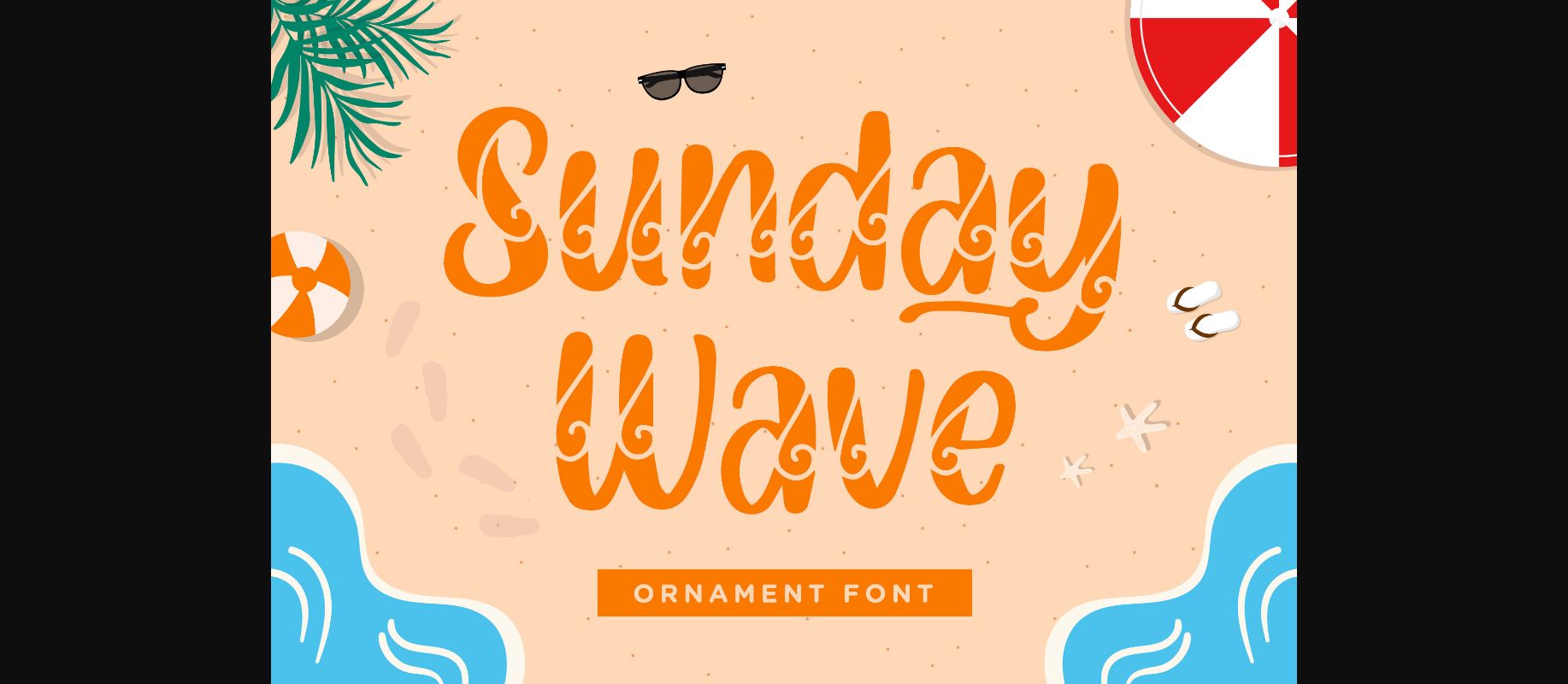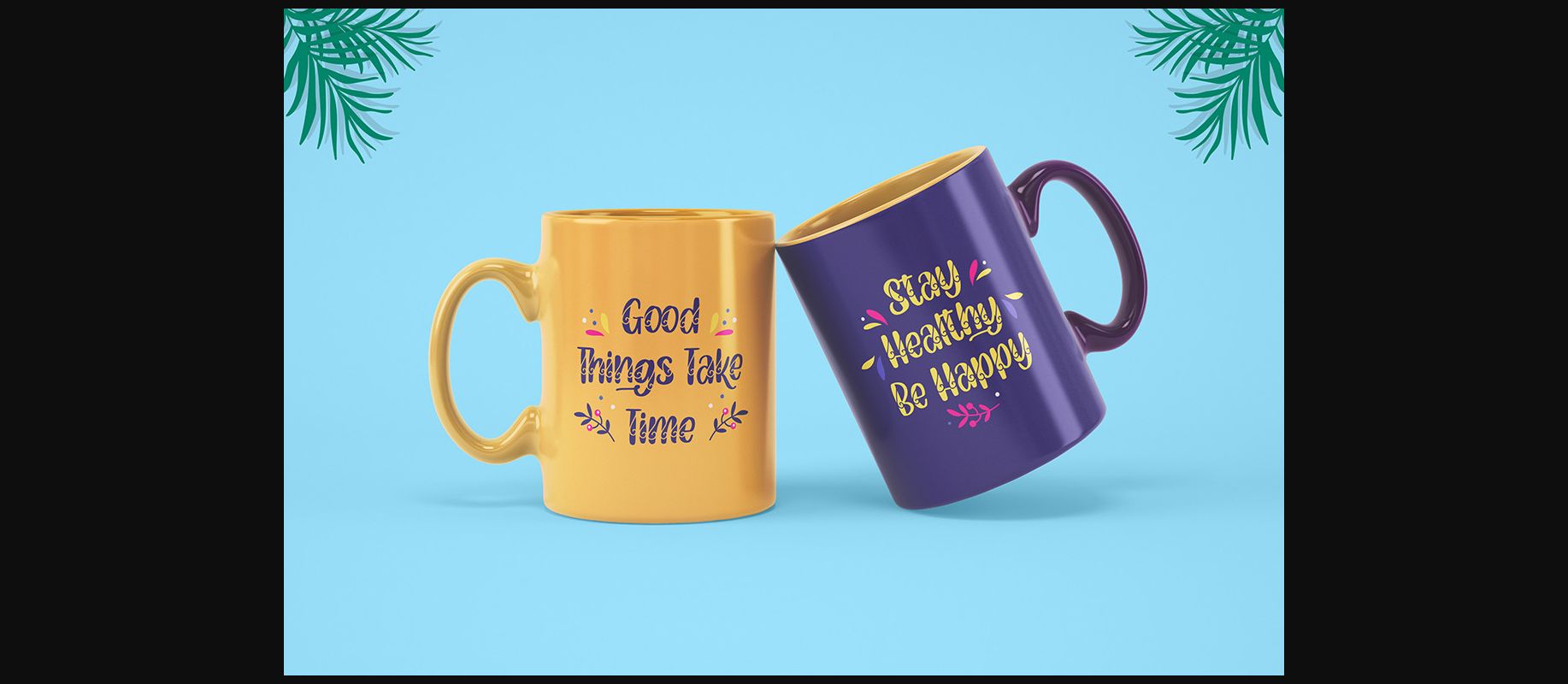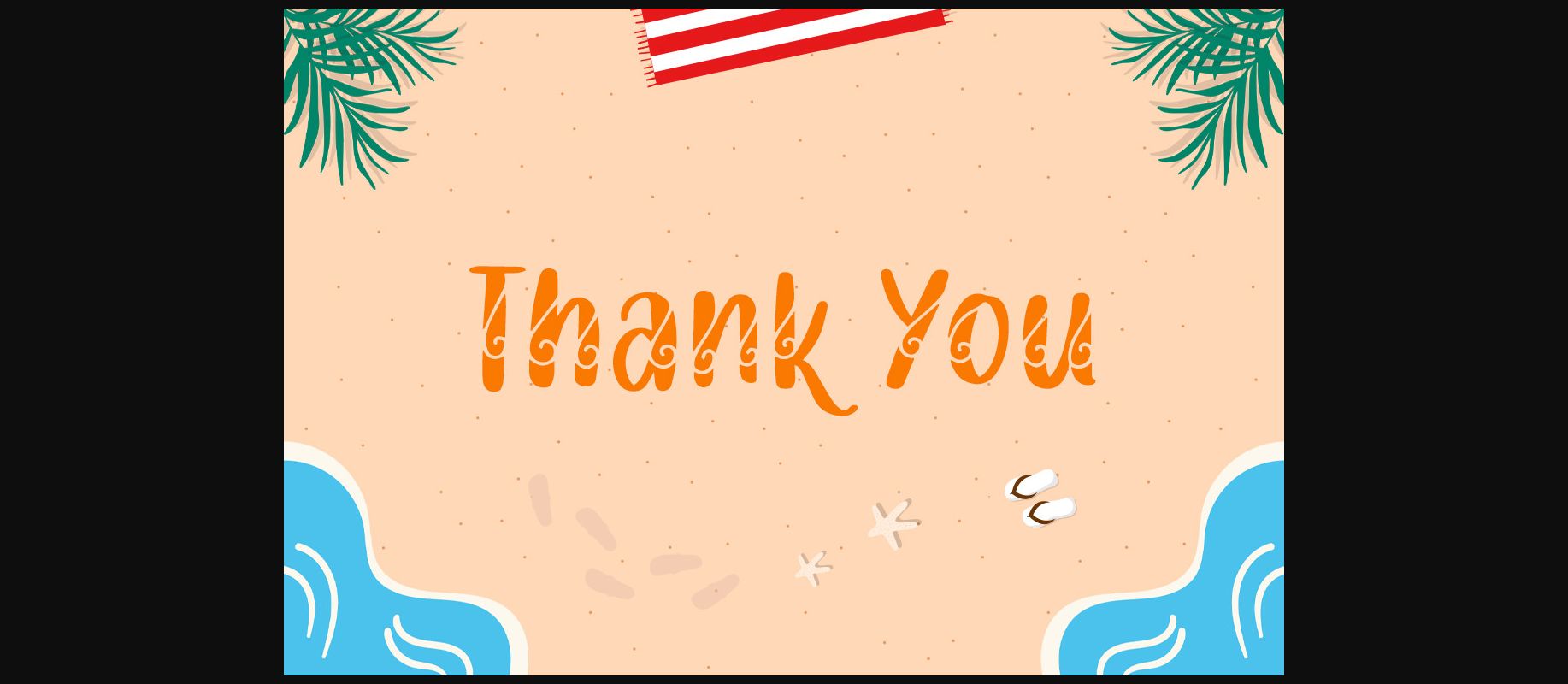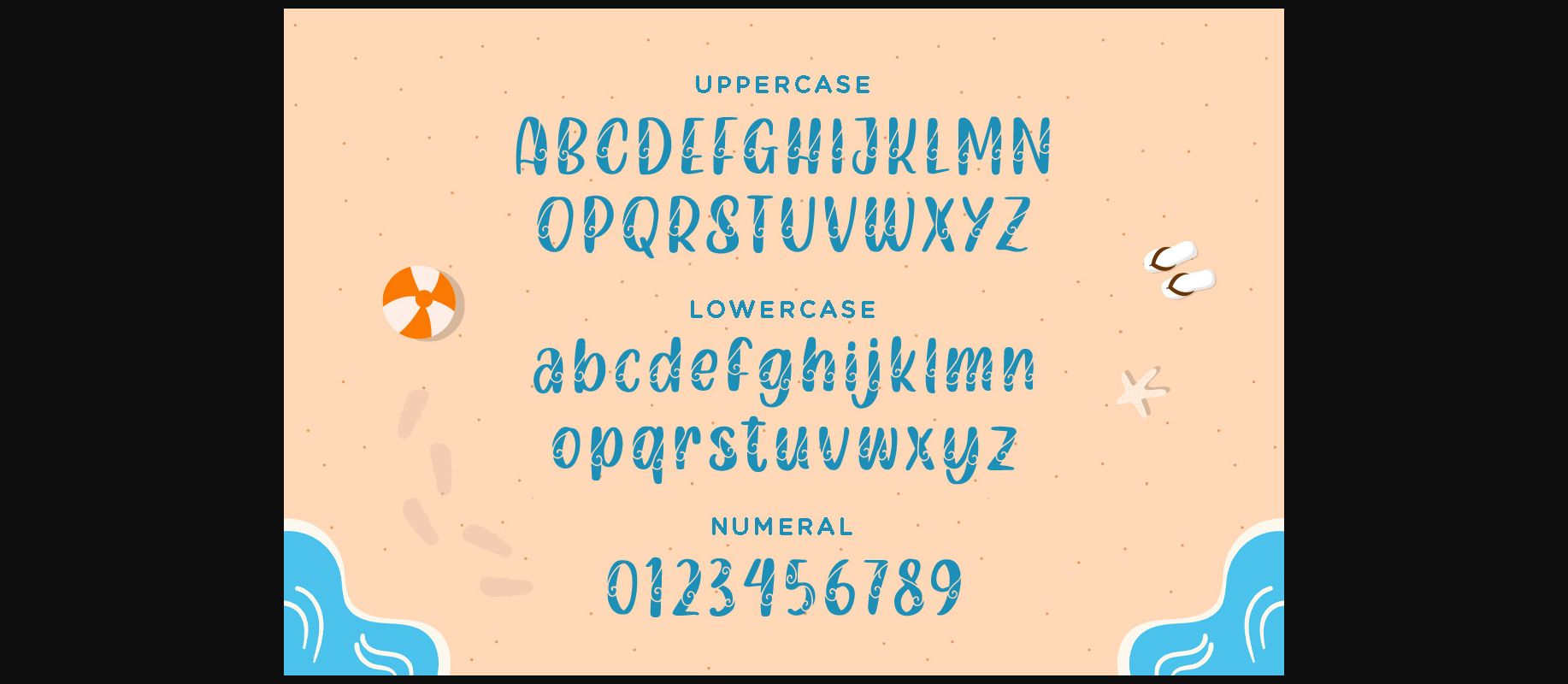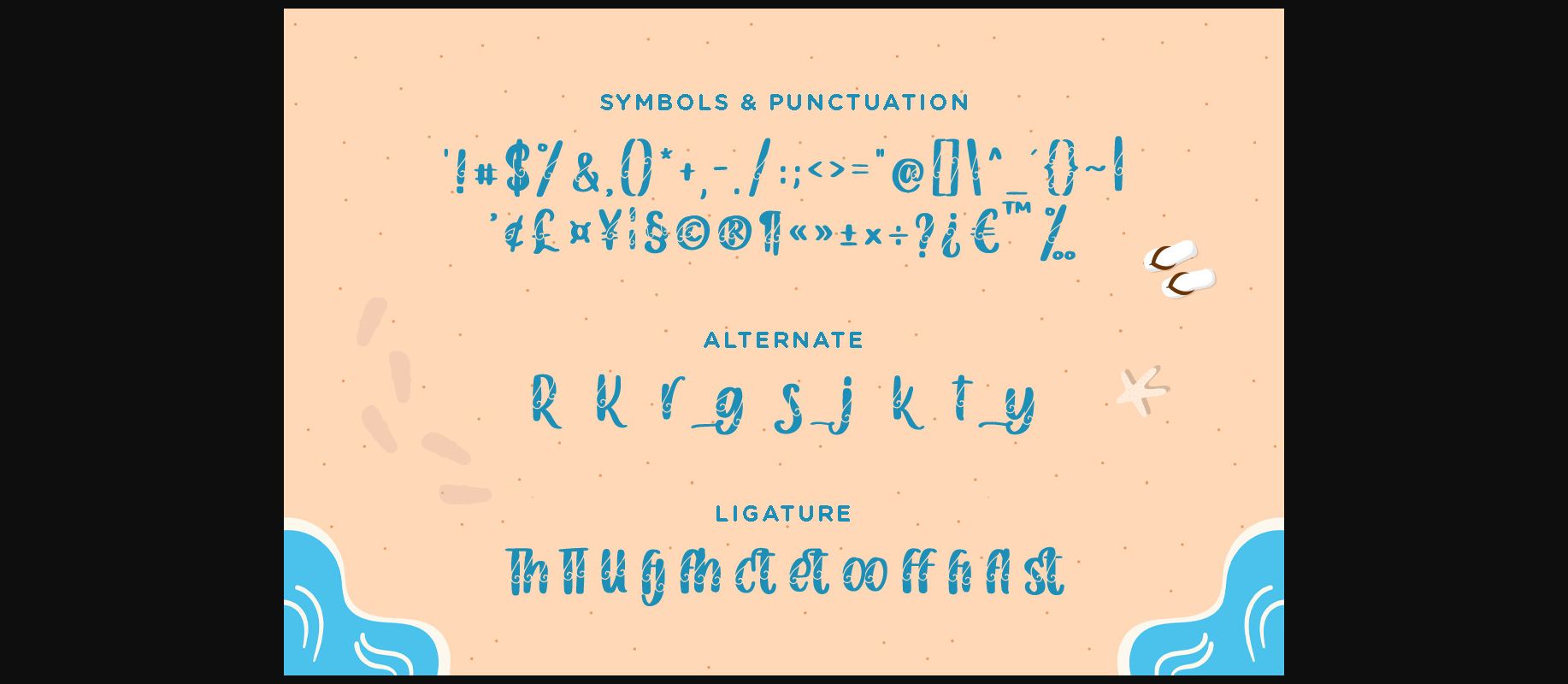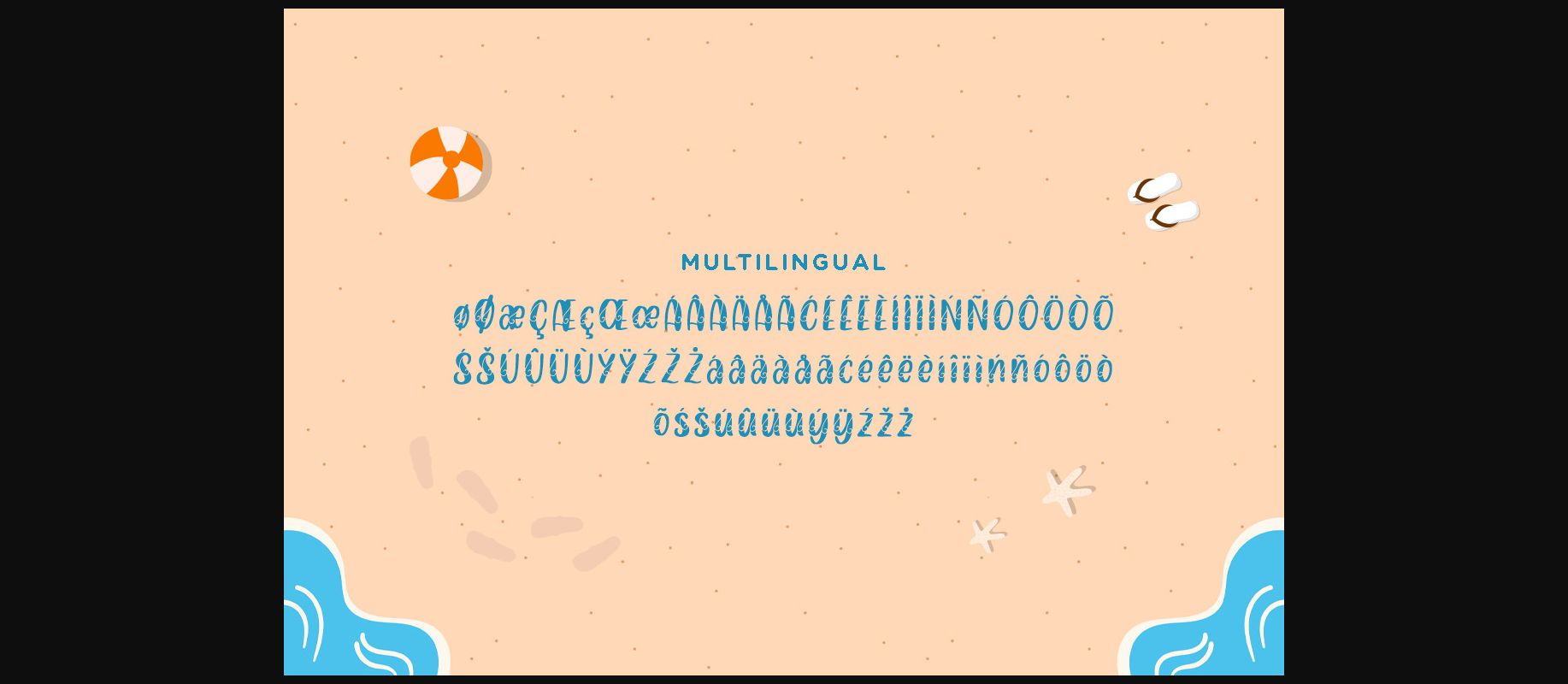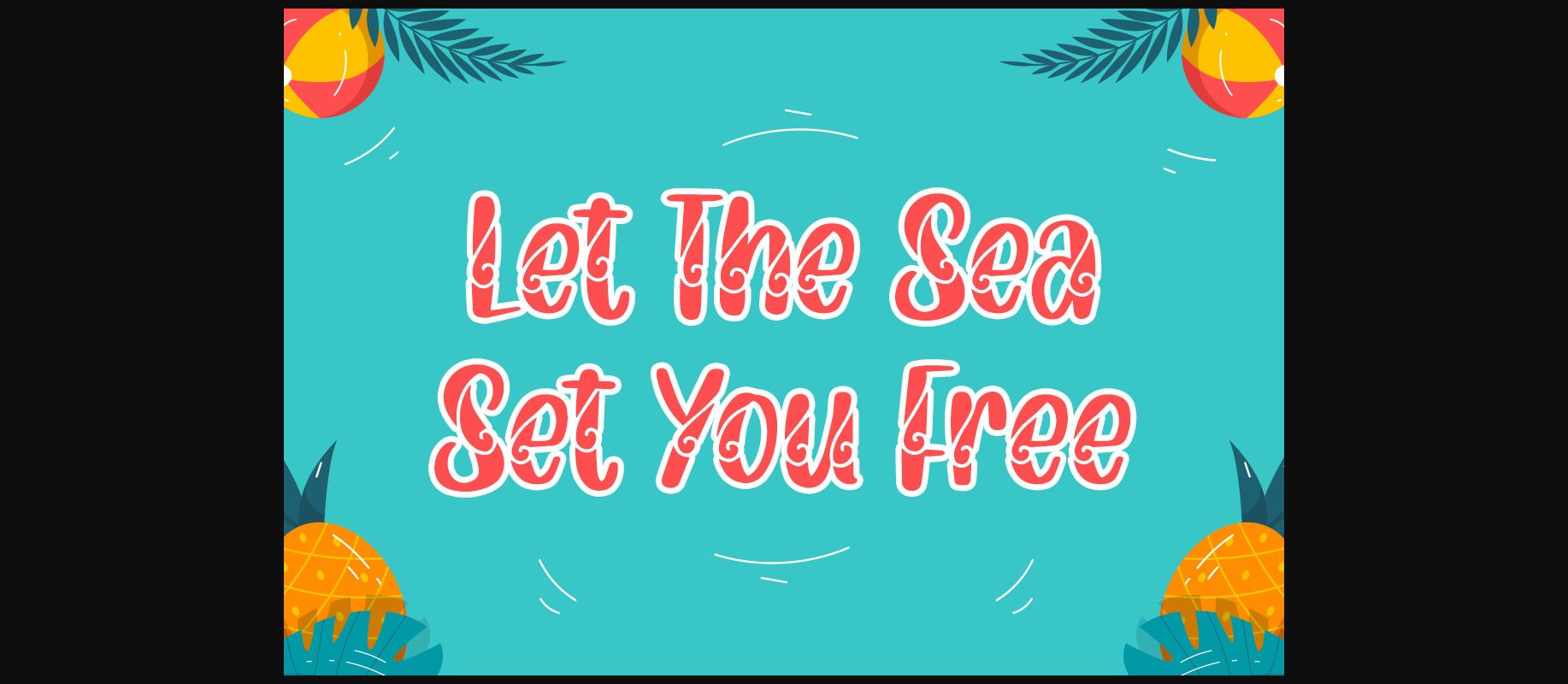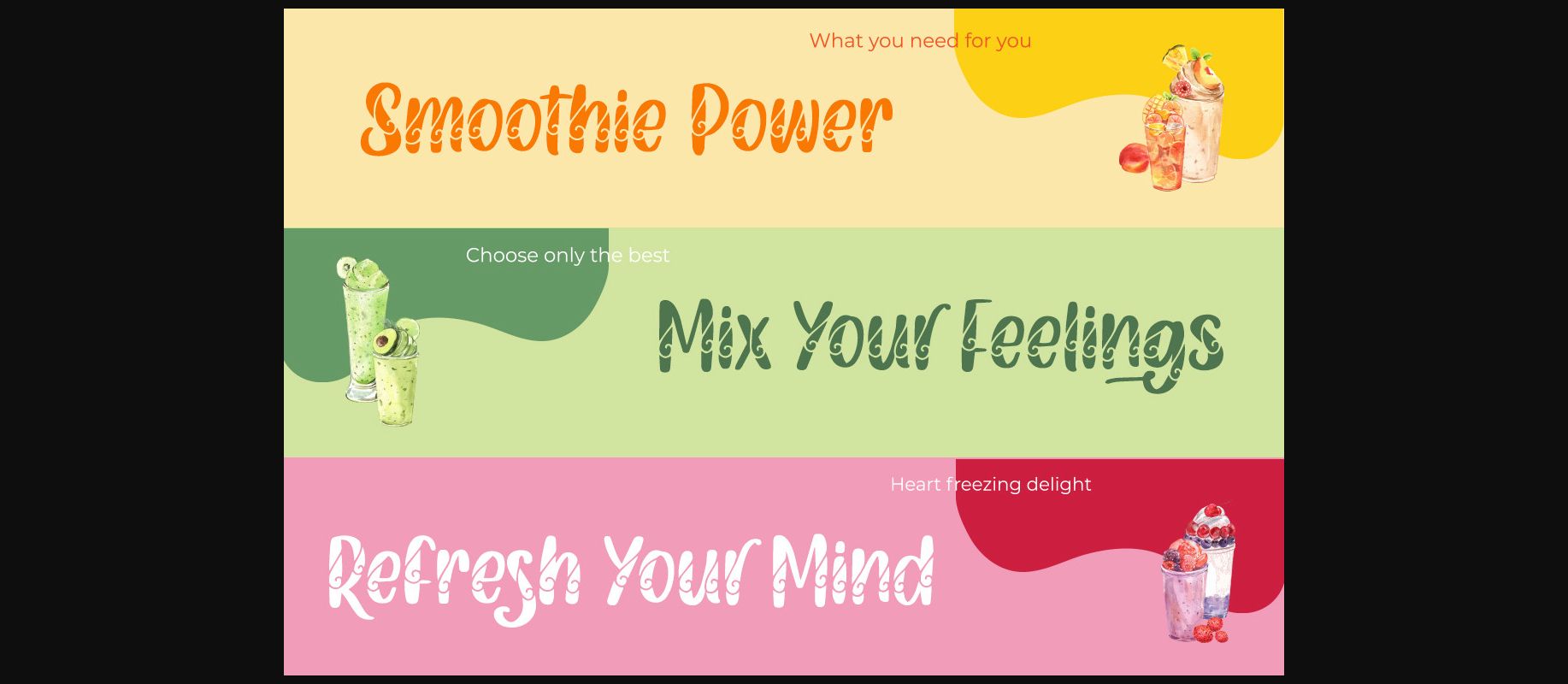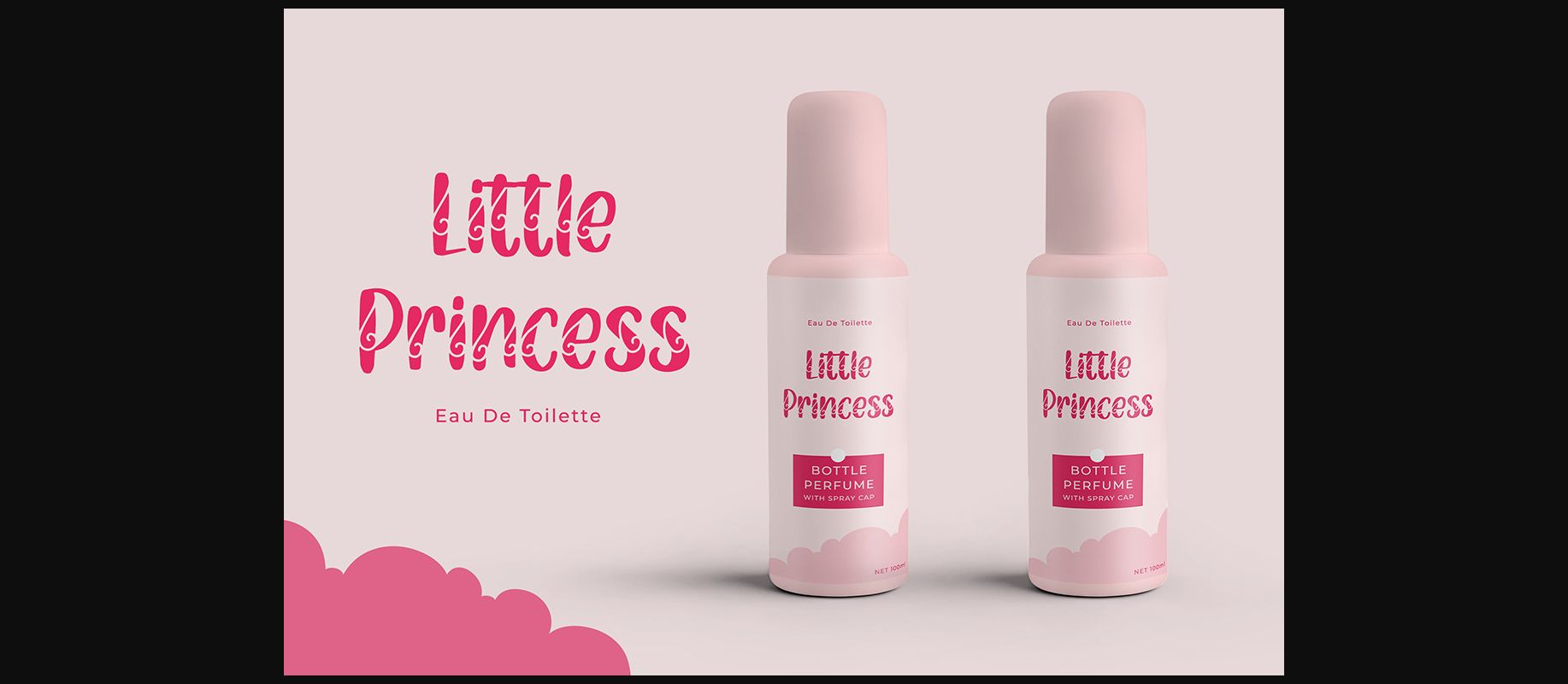
Sunday Wave Font
About Sunday Wave Font
Sunday Wave is a chic and beautiful decorative font. Fall for its ravishing style and use it to create gorgeous wedding invitations, beautiful stationary art, eye-catching social media posts, and much more!